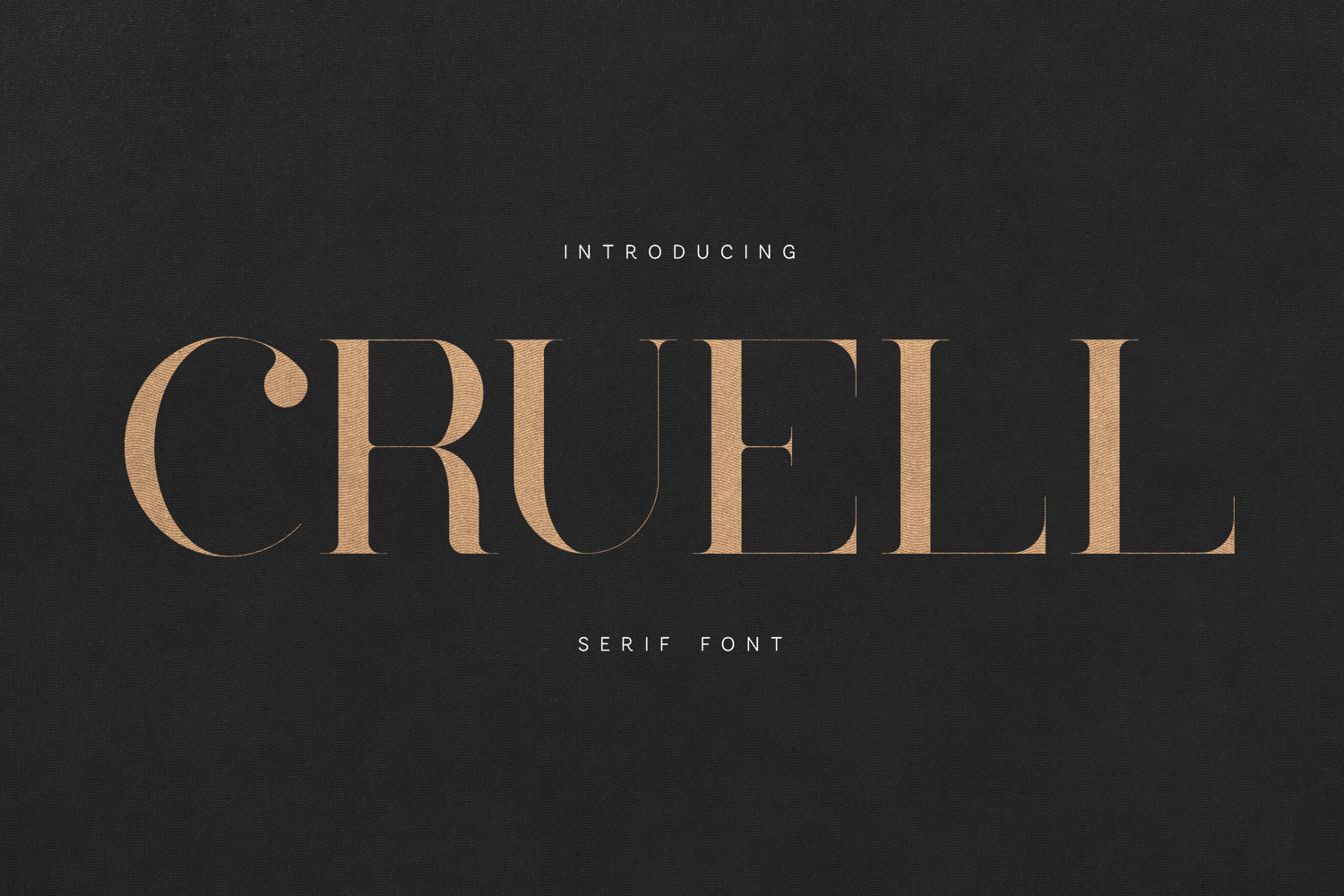
Cruell Elegant Luxury Serif Font
Cruell is a refined luxury serif typeface designed for elegant branding, editorial layouts, and sophisticated visual identities.
Built with sharp high-contrast strokes and graceful curves, Cruell delivers a timeless aesthetic that feels both modern and classic. The sculpted letterforms create a strong visual rhythm, making the font perfect for premium headlines, fashion branding, and luxury packaging.
Its balanced proportions allow Cruell to perform beautifully in both large display settings and refined typography compositions. Whether used for magazine titles, cosmetic brands, boutique logos, or stylish invitations, Cruell adds confidence, clarity, and elegance to any design.
The typeface includes a full uppercase and lowercase set, numbers, punctuation, and extensive multilingual characters, allowing designers to create polished typography across international projects.
Cruell is a versatile serif built for designers who appreciate detail, sophistication, and timeless typography.
Perfect For
Luxury branding
Editorial design
Fashion magazines
Beauty packaging
Logotypes
Wedding invitations
Social media graphics
Premium product packaging